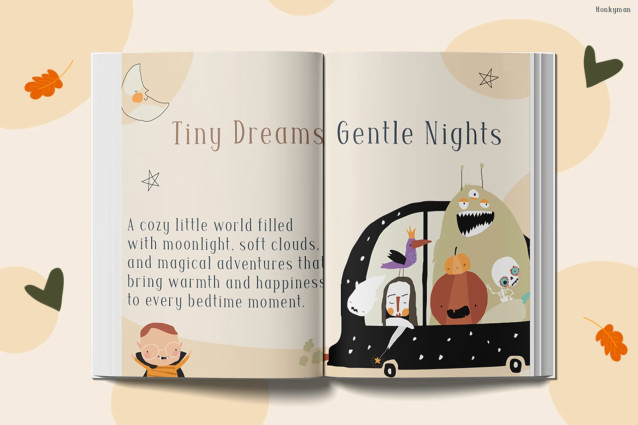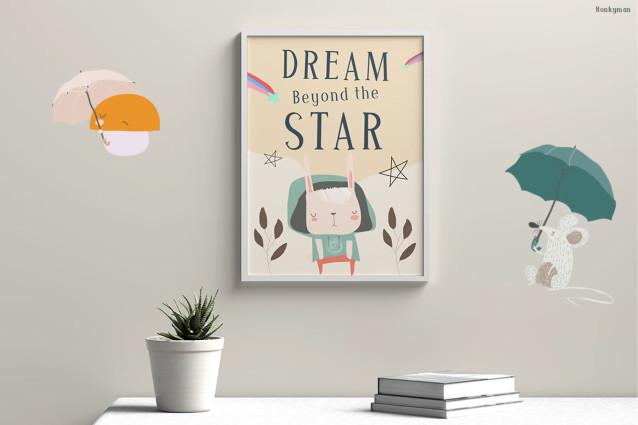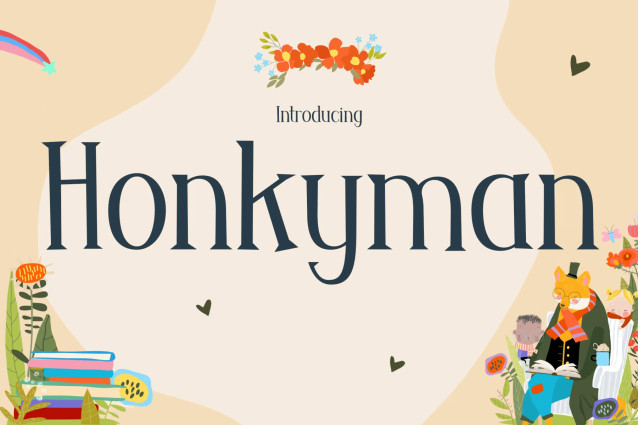
Honkyman Font
Kids Font Honkyman – Cozy Storybook Serif Full of Magic
Kids Font Honkyman is a warm and playful display font that beautifully captures the charm of classic storybooks and whimsical childhood adventures. With its elegant serif style, soft curves, and imaginative character shapes, this font instantly creates a cozy and magical atmosphere. Moreover, the balanced typography feels both artistic and highly readable, so your titles stay eye-catching while still looking clean and friendly. In addition, the gentle vintage-inspired aesthetic gives every design a comforting and timeless feel.
Because of its versatile appearance, Kids Font Honkyman works perfectly for both digital and print projects. Furthermore, the decorative serif details help your typography feel more expressive and visually memorable. At the same time, the playful styling keeps every layout looking fun, creative, and approachable.